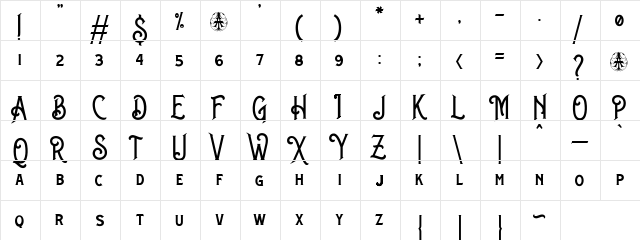
Brighton Spring Personal Use On Regular
Design Context for Brighton Spring Personal Use On Typeface
Brighton Spring Personal Use On is a composed and adaptable typeface that performs quietly and consistently across a wide range of design contexts.